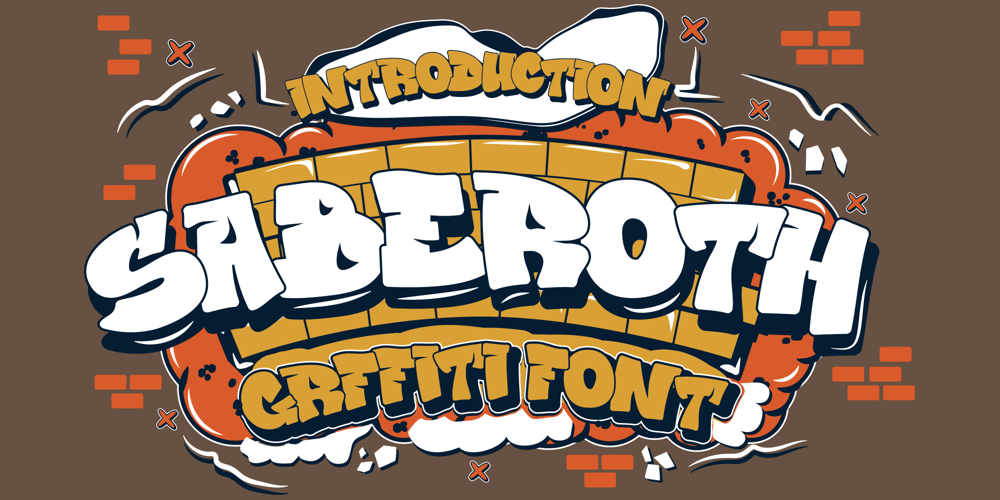
Saberoth Font Family was designed by Mugi Raharjo and published by Nian Keun Studio. Saberoth contains 2 styles and family package options. Saberoth a innovative graffiti font that seamlessly melds the dynamic and bold ‘piece’ style of street art with a contemporary and versatile edge. This cutting-edge typeface injects a modern artistic sensibility into your design endeavors, infusing them with an urban vibrancy that captures attention. Every character in AeroForma is intricately designed to embody the essence of the ‘piece’ style, akin to meticulously spray-painted masterpieces adorning urban landscapesIts adaptability and versatility make it suitable for a wide range of design projects, enabling you to elevate your branding, headings, invitations, logotypes, wall art illustrations, labels, and more to new levels of creativity